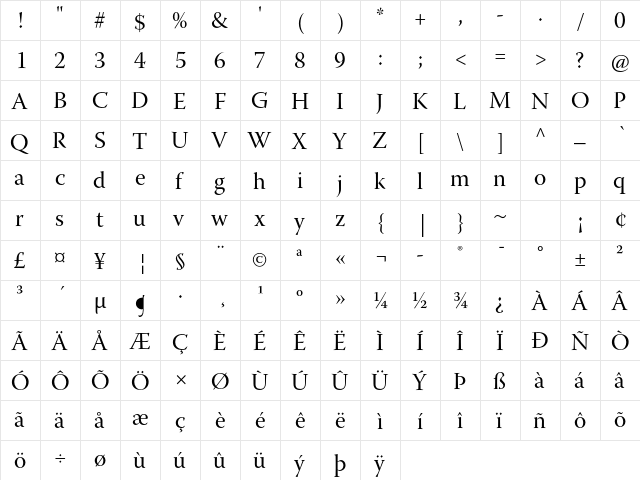
Warnock Pro Subhead
| Designer | Robert Slimbach |
Design Context for Warnock Pro Typeface
Warnock Pro offers clean, dependable letterforms without strong stylistic allegiance, making it a practical choice for designers who need flexibility.